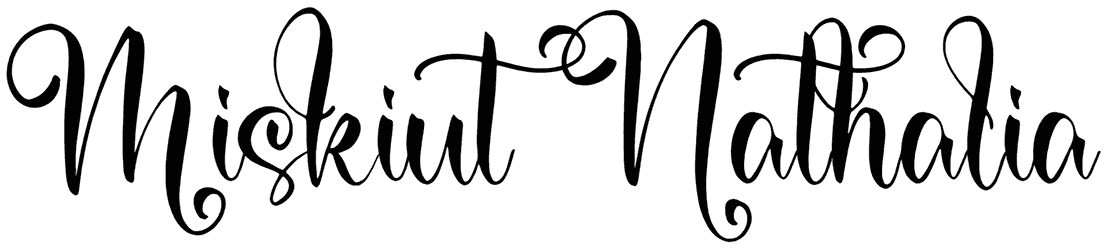
Miskiut Nathalia Font
Make words dance and create an enchanting design with this calligraphy font. Miskiut Nathalia consists of refreshing curvy letters that can be a cheerful face for varied happy-themed projects. With an A-Z support of characters, Miskiut Nathalia font will be presented as an apt choice for numerous layouts such as postcards, wedding invitations, magazines, and whatnot.